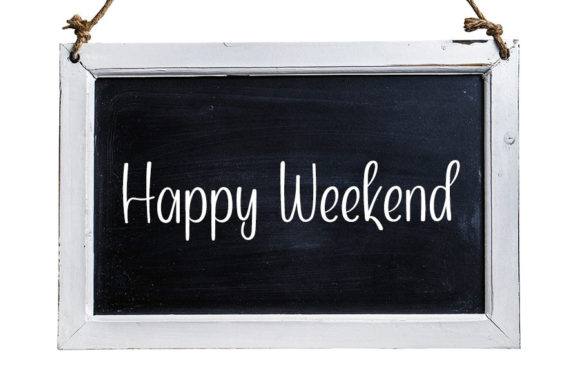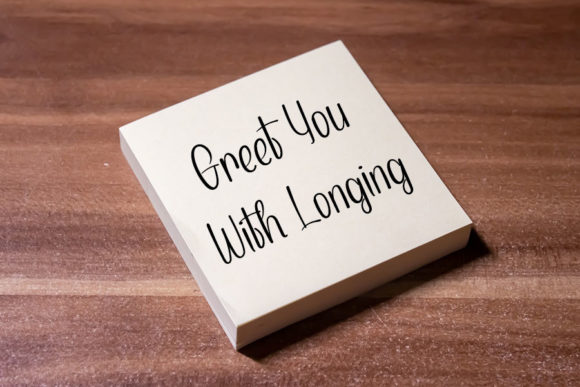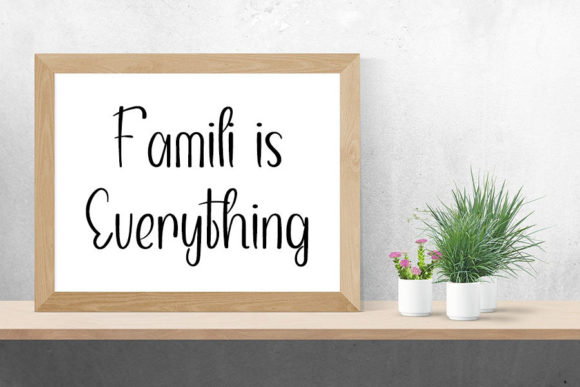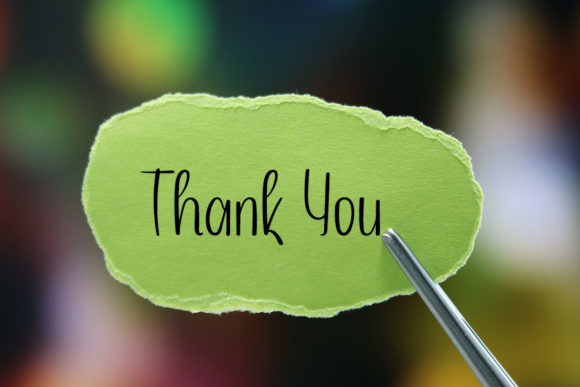
A Fresh Touch of Elegance: Amanda Handmade Font
As a designer, have you ever found yourself staring at a blank canvas, searching for the perfect font to bring your vision to life? The moment when everything falls into place, and your design starts to take shape, is truly magical. It’s in these moments that we remember why we became designers in the first place – to create something beautiful and meaningful.
Amanda Handmade Font is a delightful addition to any designer’s toolkit. This lovely script handwritten font was crafted with elegance and class in mind, making it perfect for those who need a beautiful and refreshing look to their designs. Whether you’re working on a wedding invitation, a branding project, or a romantic novel, Amanda Handmade Font is sure to add a touch of sophistication and whimsy to your creations.
With Amanda Handmade Font, you’ll have the power to create stunning designs that exude refinement and charm. Its unique character and effortless style make it a valuable asset for any designer looking to elevate their work and leave a lasting impression on their audience.
Amanda Handmade Font Key Features
- Font Family: Amanda Handmade, Amanda Handmade Script, Amanda Handmade Italic, Amanda Handmade Script Italic
- Character Set: 128 characters (A-Z, a-z, 0-9, punctuation, and special characters)
- Unique Characteristics: Hand-painted, brush script, elegant, and whimsical design; perfect for wedding invitations, quotes, and other creative projects
Amanda Handmade Font Review
I’ve had the pleasure of working with the Amanda Handmade Font, and I must say it’s a unique and charming addition to any design project. ✨ The font’s handcrafted feel and subtle imperfections give it a personal touch that’s hard to find in more commercial fonts.
One of the things I appreciate most about Amanda Handmade is its versatility. It’s perfect for creating a warm and inviting atmosphere in branding, packaging, or even web design. ✨ The font’s elegance and sophistication also make it suitable for high-end projects or luxury brands.
While Amanda Handmade is a great font, there are a few limitations to keep in mind: ⚠️
- Some characters may be difficult to read at small font sizes due to the font’s intricate details.
- The font may not be suitable for projects requiring a high level of consistency, as the handcrafted feel can make it challenging to maintain a uniform appearance.
- Amanda Handmade may not be compatible with all operating systems or software, which could lead to display issues.
Overall, I think Amanda Handmade is a beautiful and unique font that can add a personal touch to any design project. While it may have some limitations, its charm and character make it well worth considering for the right project.
Tips for Getting the Most Out of Amanda Handmade Font
Amanda Handmade Font is perfect for creating whimsical and vintage-inspired designs. To get the most out of it, try combining it with other distressed or handwritten fonts for a unique look.
Common Use Cases for Amanda Handmade Font
Amanda Handmade Font is commonly used for:
- Branding and logo designs
- Food and